The recipient of a MacArthur Genius grant, Carter's iconic typefaces include Verdana and Georgia. Today he lives in Cambridge, Massachusetts, but we spoke with him in Cape Town, South Africa, where he was a speaker at Design Indaba.
You said this morning that influence doesn't always come in pure form. Can you talk about how you refill the creative well?
I wish there was a formula. I wish I could say, Okay, I’m going to an exhibition, I’m going to walk out with a great idea. It doesn't work that way for me at all.
I once heard Chuck Close interviewed on television. He said, Inspiration is for amateurs. What artists do is they show up, they put in the time, and they do the work. And I think that's even more true for designers, or at least my kind of design, than for artists.
I'm not someone who sits around waiting for light bulbs to go on above my head.
So you go places like cemeteries, not for inspiration, but because of curiosity?
I am endlessly curious. I always carry a camera. New England gravestones are so amazing because for a long time they were not influenced by typography. You can look at these late 17th, early 18th, century gravestones and have no idea where the lettering comes from. But it certainly doesn't come from books. I love to look at lettering, at old books, museums, and art galleries.
Can you tell me a bit about your early encounters with typefaces? Small children are effectively learning to make their own fonts by hand, with a pencil. But then most lose interest.
Original sketch of Gill Sans Bold Extra Condensed by Eric Gill for Monotype, April 5th 1937. Photo by: Jon Tangerine.
My dad was a book designer and a historian of typography, so there were books about the history of all this around the house.
I was born just two years before the Second World War: 1937. My dad went off to the war. There weren't a great many toys. My mother made a capital alphabet cut out of linoleum. I can actually remember the shapes of some of those letters. They were Gill Sans, which of course was absolutely the correct thing in the 30s in England.
My dad was not the sort of dad to push me to follow in his footsteps. I think he would have been very happy if I'd done something completely different because it would have made conversation at the dinner table more interesting.
Once I did get interested, then he was very kind and made introductions. I was very lucky in my youth with people that I was as in contact with, who encouraged me. An awful lot of people were kind to me when I was starting out by treating me not as an equal, but by taking me seriously.
We all have easy access to fonts like Verdana and Georgia—but there are also untold ugly ones, ones that are very hard to read, and ones that might be okay on their own but are unskillfully put with others. What do you think of this font abuse?
We're hostages to the people who use our typefaces.
Sometimes you see a typeface that you designed being used, say, badly, or in a way that you did not expect. The paradoxical thing is you often learn something more from that. It's very nice if somebody picks up a typeface and they do a really good job of it. It's good for the morale. But I don't know that I learn anything from that.
Compared to when I was starting out, there's much more type, and also more knowledge about type. You can have a perfectly intelligent conversation about fonts with a 9 year old. It's a very different world to the one I grew up in, where nobody knew what a type designer was. Or if they did know, they would say to you, Oh, I thought they were all dead.
Typeface is essentially an anonymous business. I have no business getting between an author and a reader. Or if I do, I'm doing my job badly. I'm happy to take a back seat. I think any other posture is incorrect. If that sort of notoriety is important to you, you're probably not going to go into type design.
As a writer, I do tend to have that want for a font that disappears. Yet when we see something like the Fiona Apple cover of Rolling Stone, your lettering is striking and bold and it has to be that way to work well. When should typeface design become invisible, and when should it be a design feature in itself?
How people react to typefaces—I never feel I’m a very good judge of this.
Typefaces do have an emotional content. People get upset if the magazine is redesigned and they don't like the new typeface.
I get asked commonly, What's your favorite typeface? I don't have favorites in that sense. What I react to is a really good use of typeface or a really bad use of a typeface. It's a very subjective reaction.
If somebody thinks it's good for an intellectual journal, fine. If somebody thinks it's good for a children's book, fine. Perhaps I'm too close.
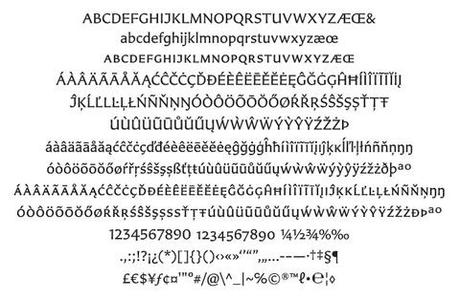
The designer's sans-serif typeface, Carter Sans, partly inspired by fellow typographer Berthold Wolpe.
I am endlessly grateful that I’ve survived into the digital age because I regard it as the best medium for making type that's ever existed. I was making digital type in the mid 70s. Not desktop type, not personal computer type, but digital type. We've lost some things, but we've gained some things. If I put them in the balance, for me, the gains far outweigh the loss.